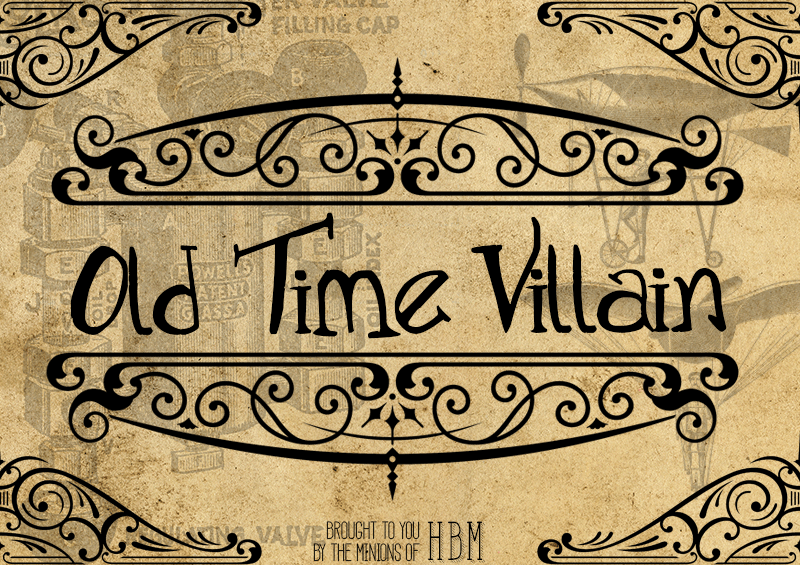
Preview and download Old Time Villain Font. Created by Here Be Monsters in Fancy Various styles with Donationware license.
The font, Old Time Villain, is inspired by Victorian villainous writings. Its hand-written design and non-uniformed character sizes give it a historic feel as well as its flourishes. It's perfect for those looking to add an oldy-worldy feel to their work! If you like this font consider donating, please visit http://www.monsterswithin.com - Little Minion |